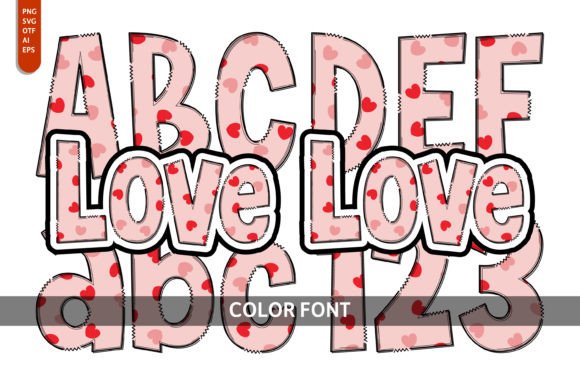
Welcome to the vibrant world of Love Love Font, a captivating collection that paints life with an artistic flair. These fonts are vibrant, playful, and artful, adding a touch of joy to any creative project. From children's books to playful designs, these fonts are designed to leave a lasting impression.
Immerse yourself in a world of imagination and expression, where creativity dances on every letter. Unleash your inner artist and let the Love Love Font spark your inspiration like never before. Explore a rainbow of colors, burst with life, and create masterpieces that radiate with personality.
Design with joy; design with Love Love Font. Transform ordinary words into extraordinary artworks, captivating audiences with your unique designs!